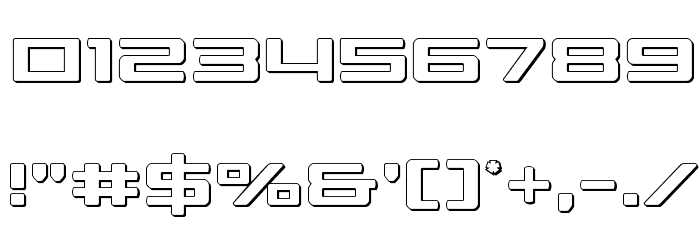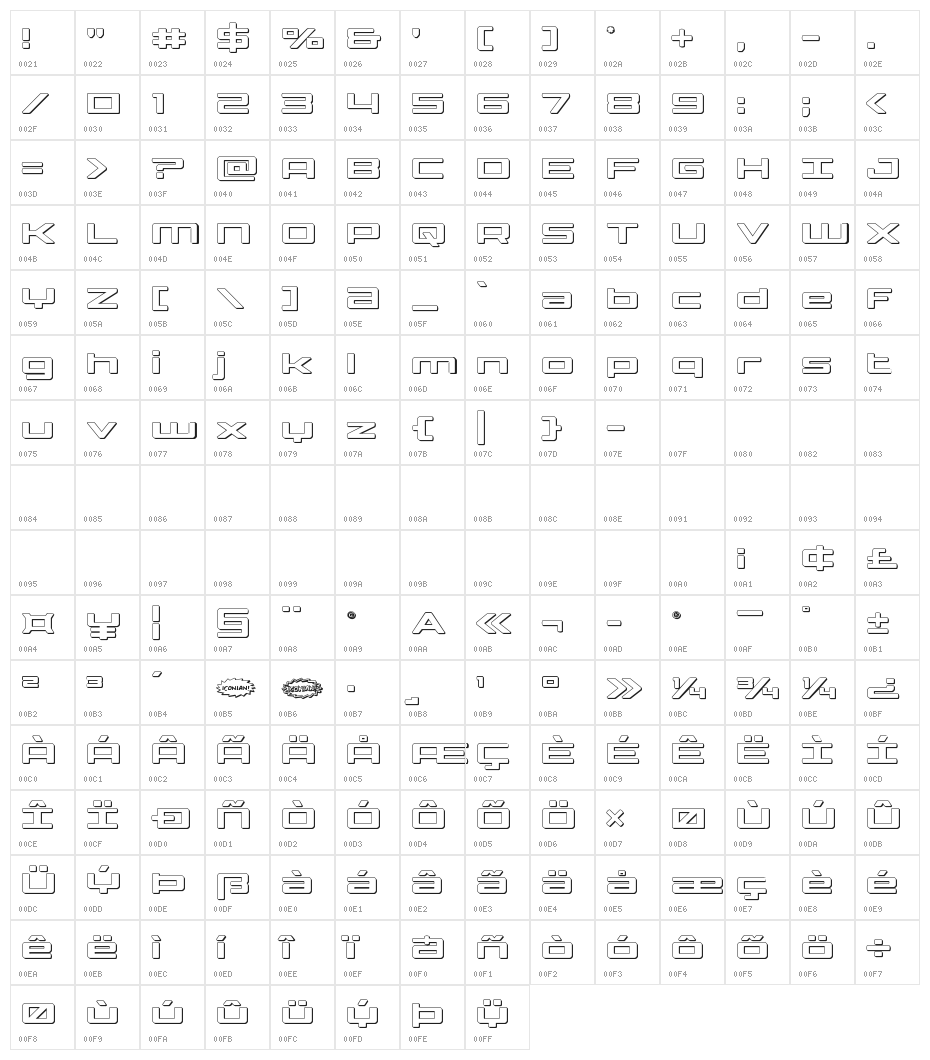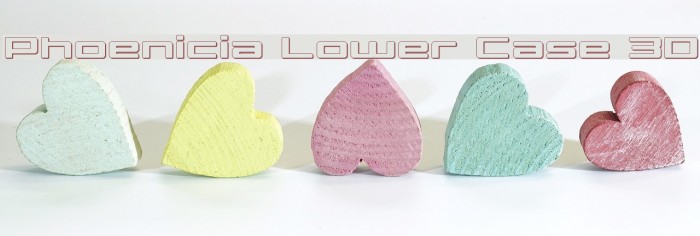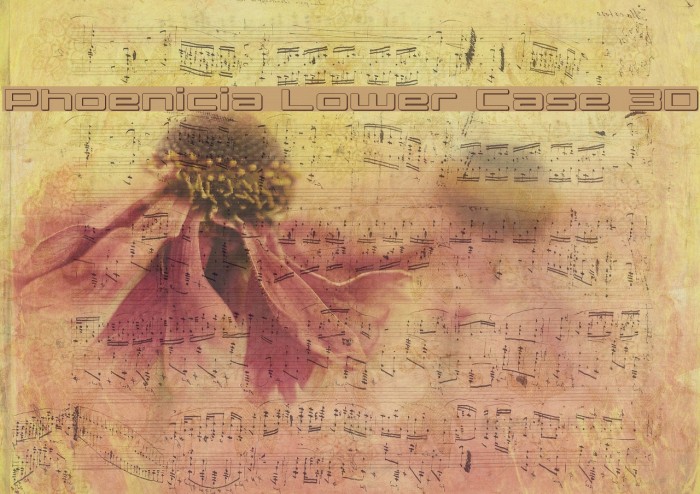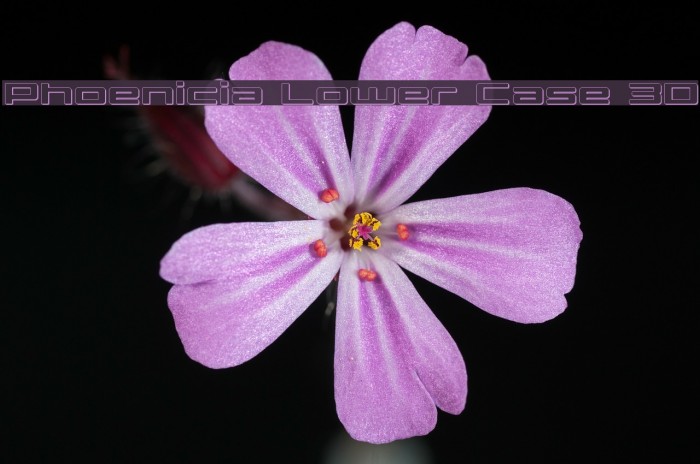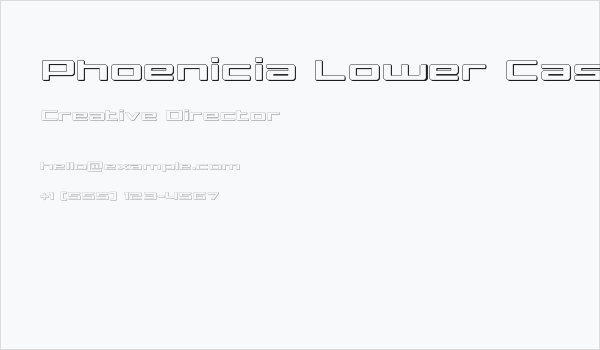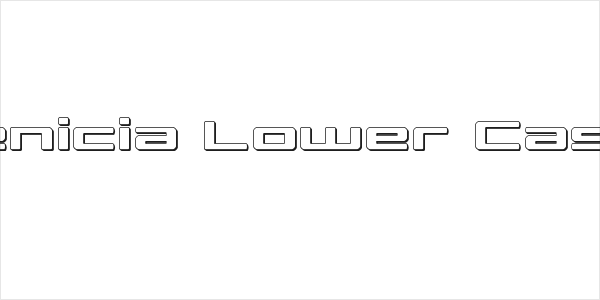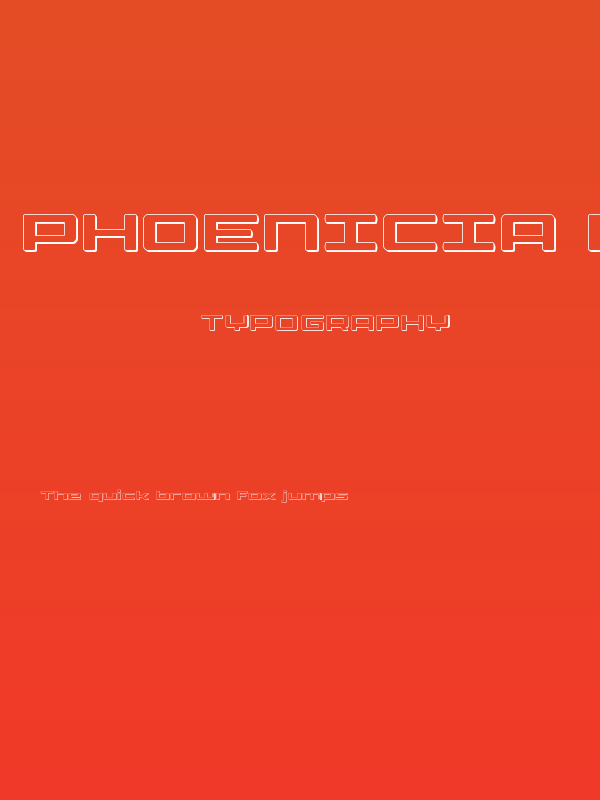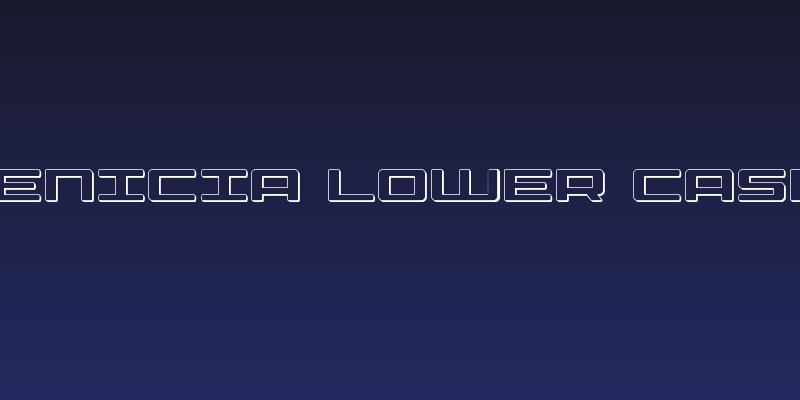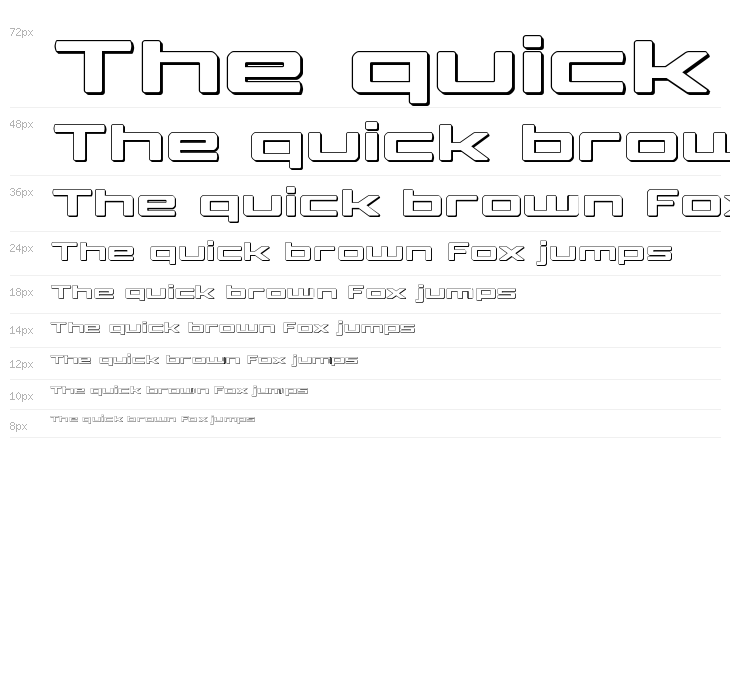
Phoenicia Lower Case 3D Font
Phoenicia Lower Case 3D Description
This font features a modern, geometric design with a three-dimensional effect. Each character is outlined with a consistent stroke width, giving it a hollow appearance. The style is clean and structured, with straight lines and sharp angles, creating a futuristic and technical look. The uppercase and lowercase letters maintain a uniform height, contributing to a balanced and cohesive appearance. The numerals and special characters follow the same design principles, ensuring consistency across all elements. This font is ideal for projects that require a contemporary and innovative aesthetic.